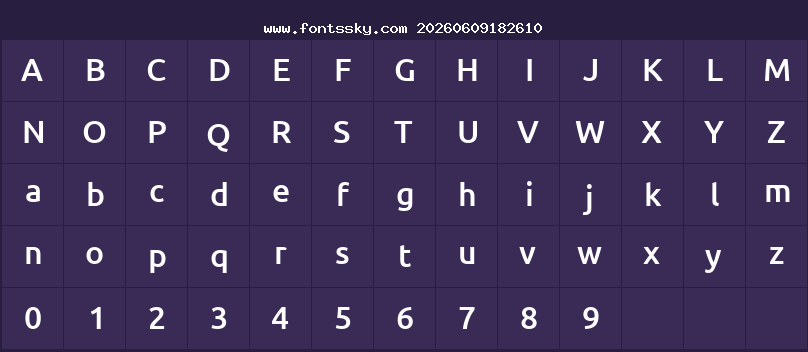
• Designer: Dalton Maag Ltd
• Manufacturer: Dalton Maag Ltd
About Ubuntu Medium.ttf
Ubuntu Medium.ttf is a modern, elegant sans-serif font designed for ultimate readability and visual harmony. Perfect for branding, headlines, web design, and print materials.